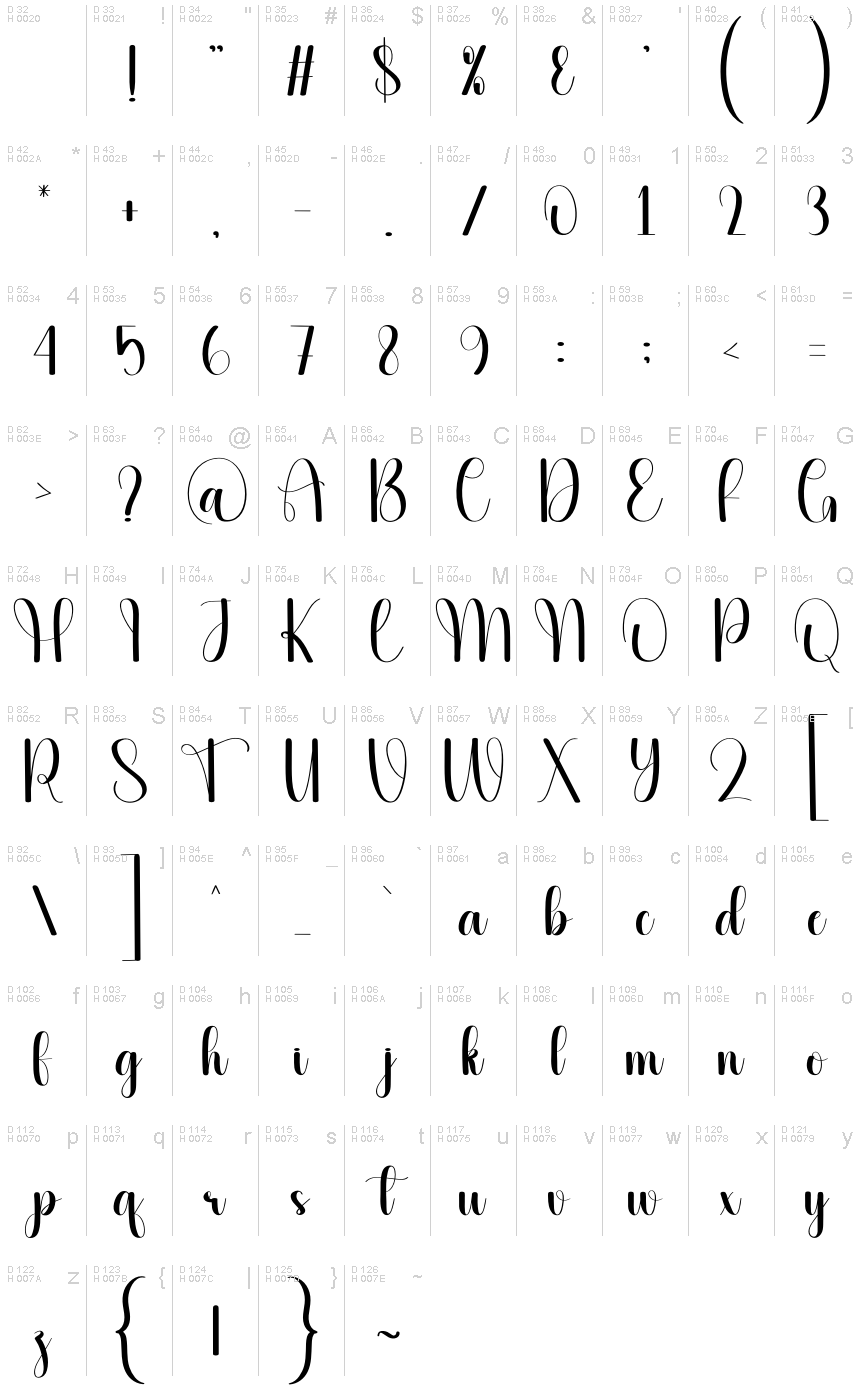
Snakefruit
Snakefruit font, crafted by the talented Scratchones, embodies the elegance of calligraphy with a contemporary twist. Its flowing curves and graceful ascenders create an inviting charm, engaging viewers at first glance. The light font enhances readability while maintaining a sophisticated allure, making it ideal for projects that demand a touch of style.
With its expressive forms and organic movements, Snakefruit is perfect for wedding invitations, elegant branding, or any design that seeks to evoke warmth and creativity. Whether used in digital platforms or print media, this font weaves a story that resonates with artistic flair, ensuring your message stands out beautifully in any context.